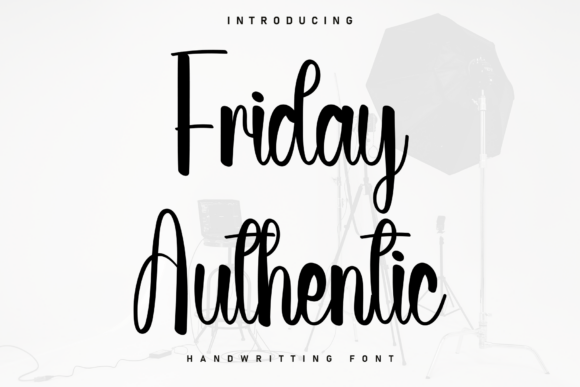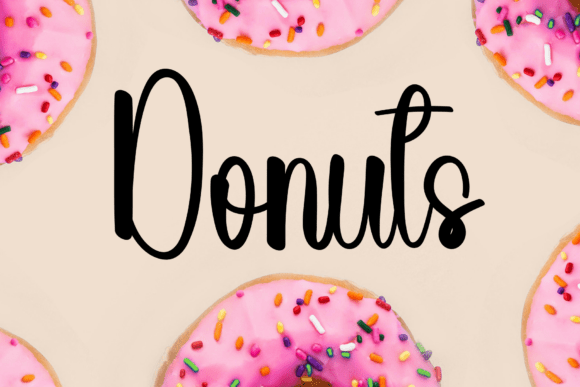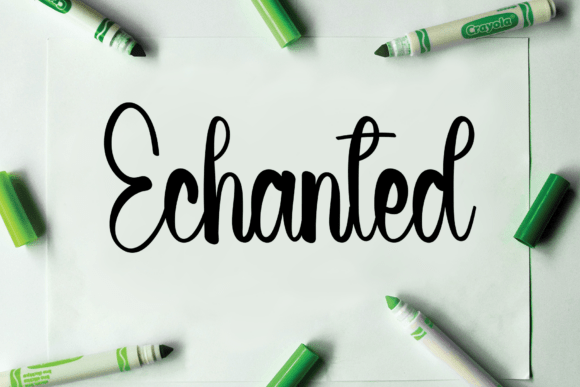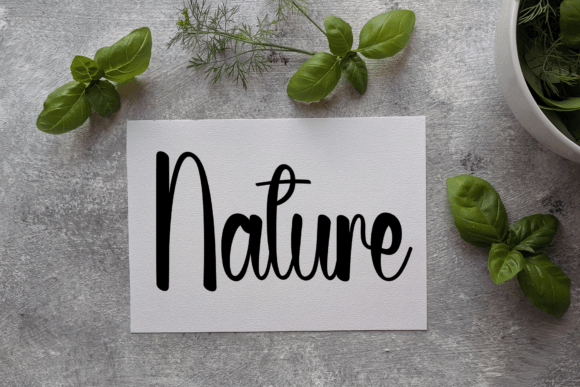
Friday Authentic Script Fonts
Inject a touch of genuine human warmth into your creative canvas with Friday Authentic. This script masterfully balances unstudied elegance with a fluid, rhythmic cadence, offering a serene aesthetic that feels both intimate and intentional. Its flowing, natural forms are designed to breathe life into bespoke visual identities, artisanal stationery, and compelling digital narratives, ensuring every layout resonates with a soft, approachable sincerity.